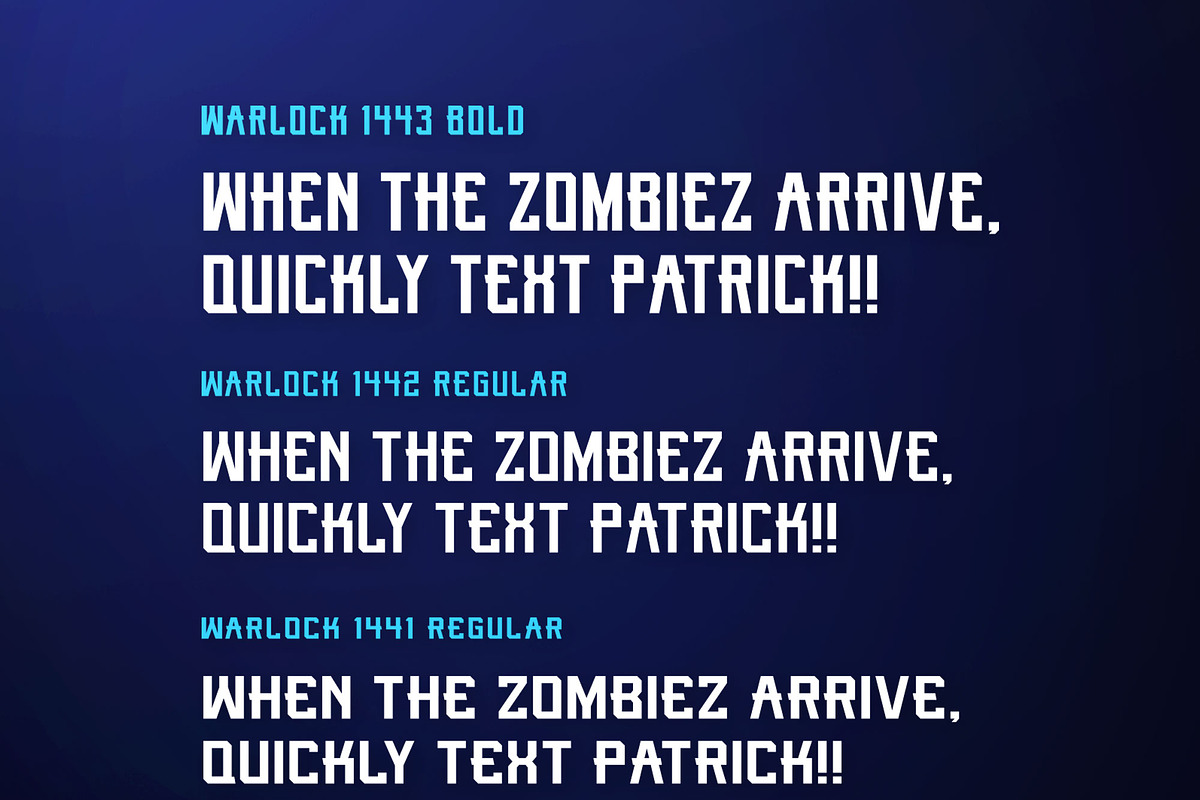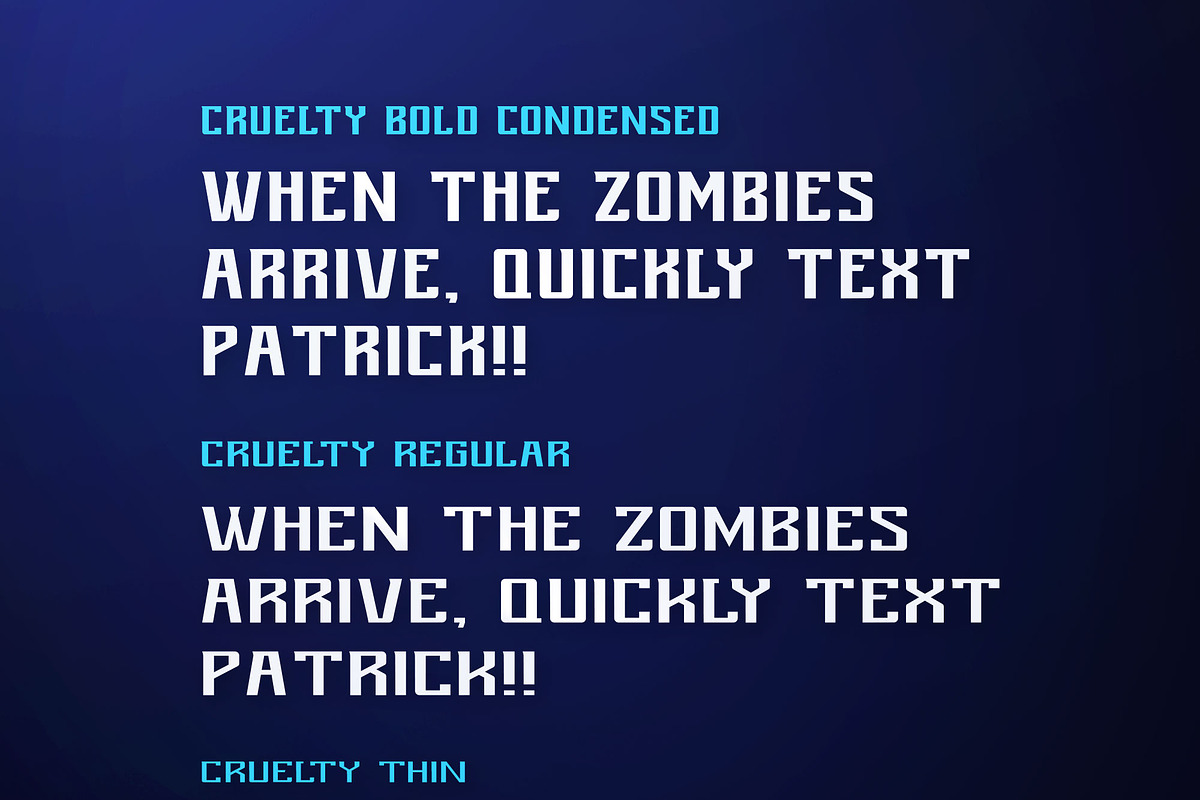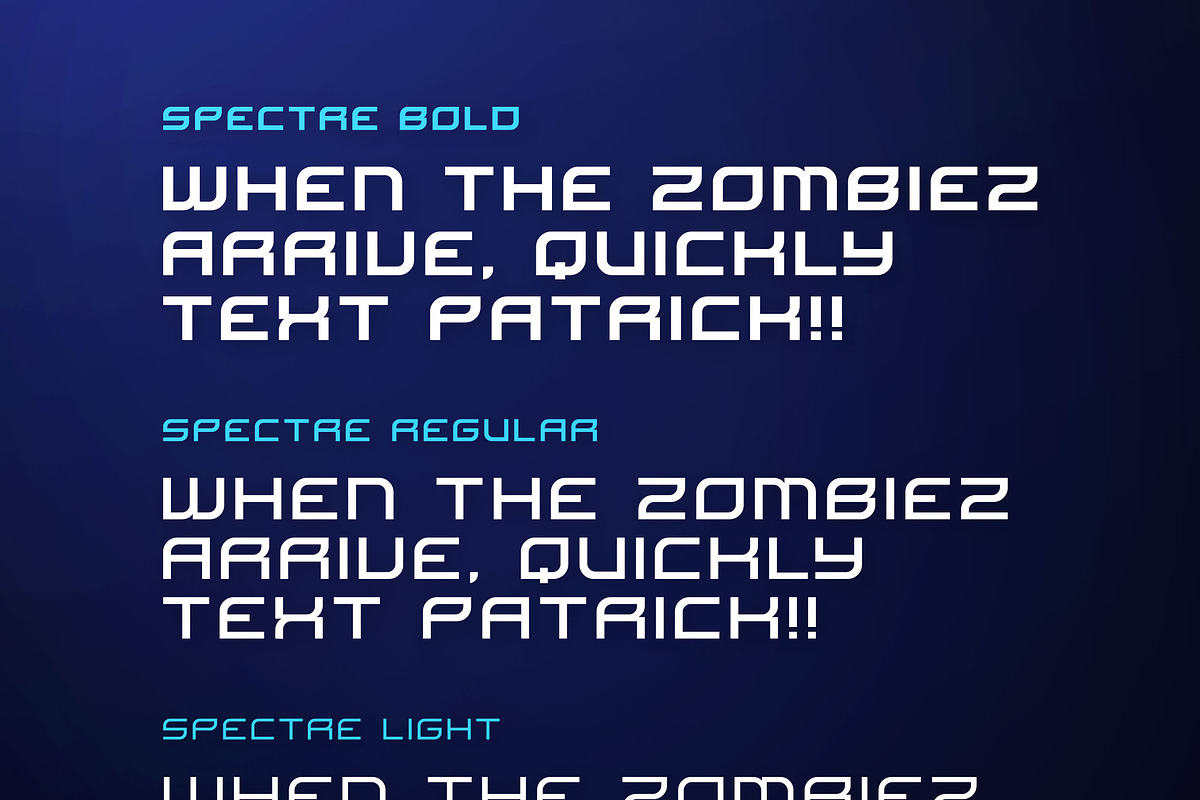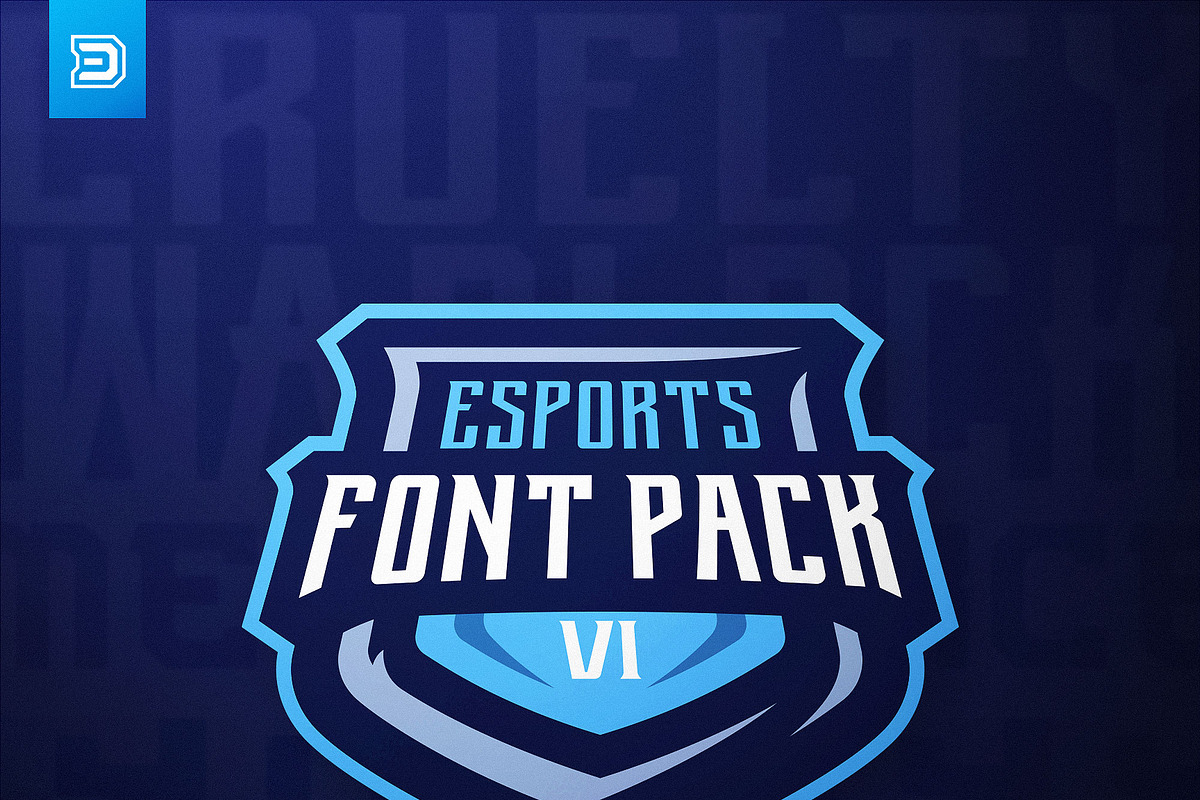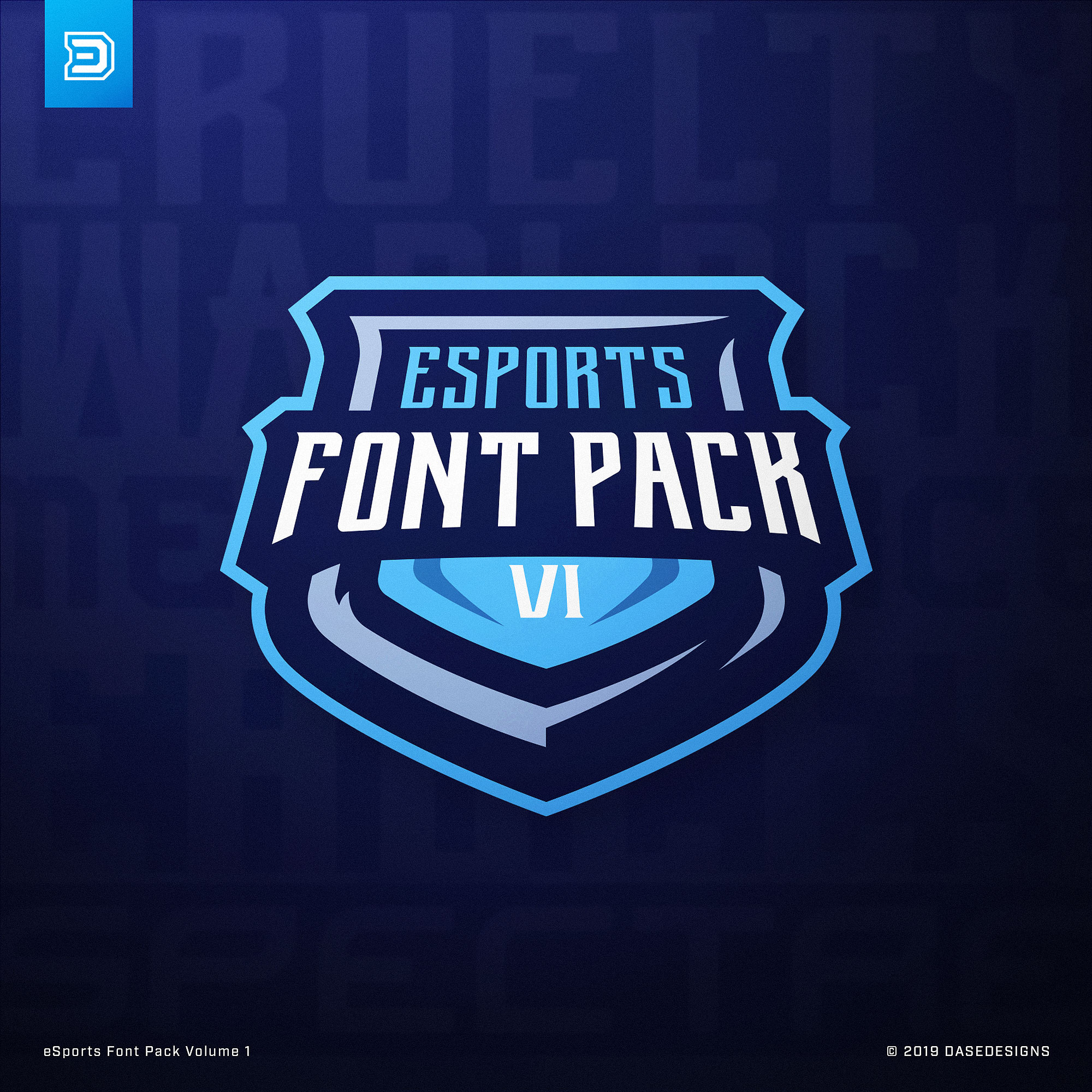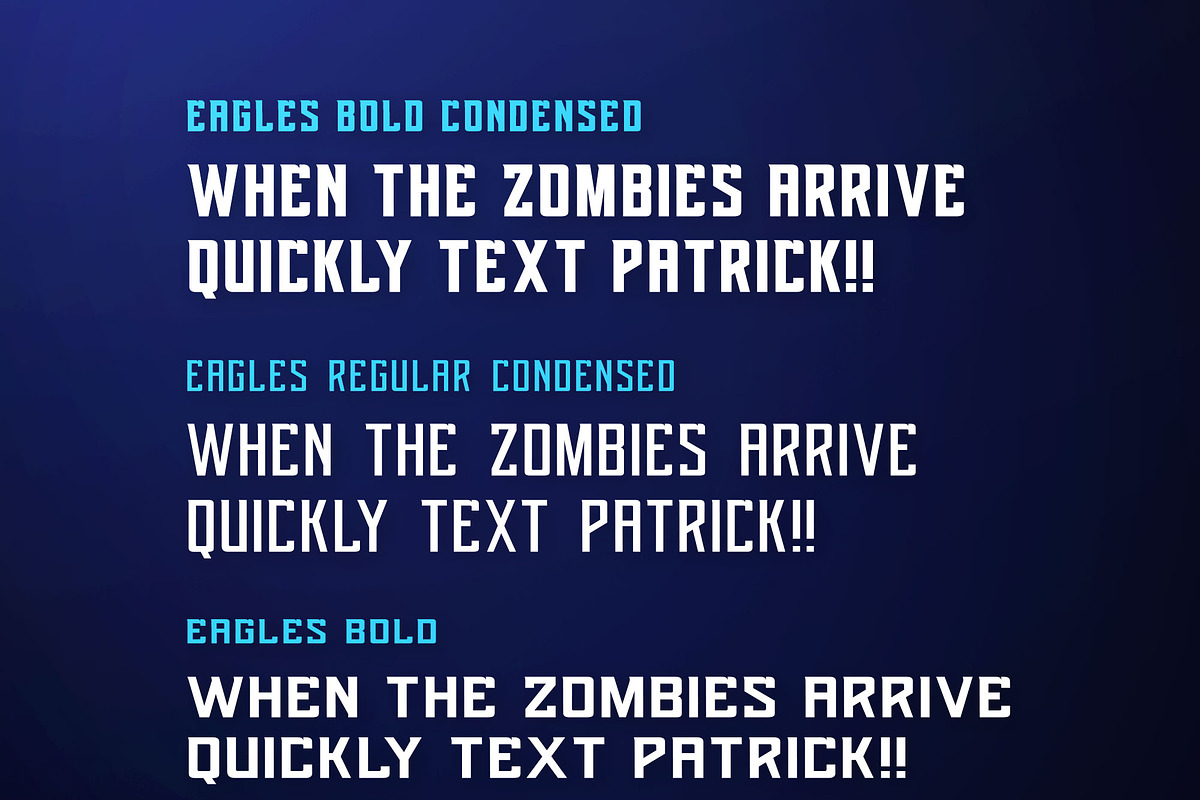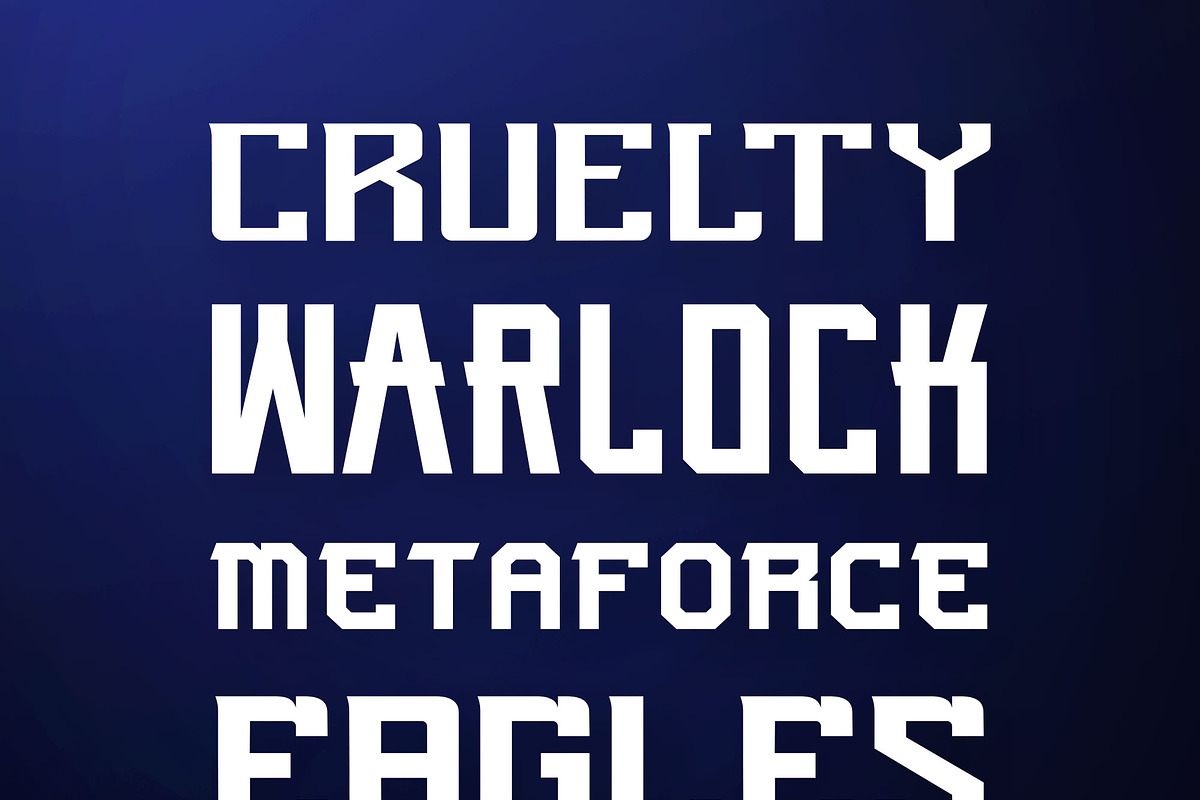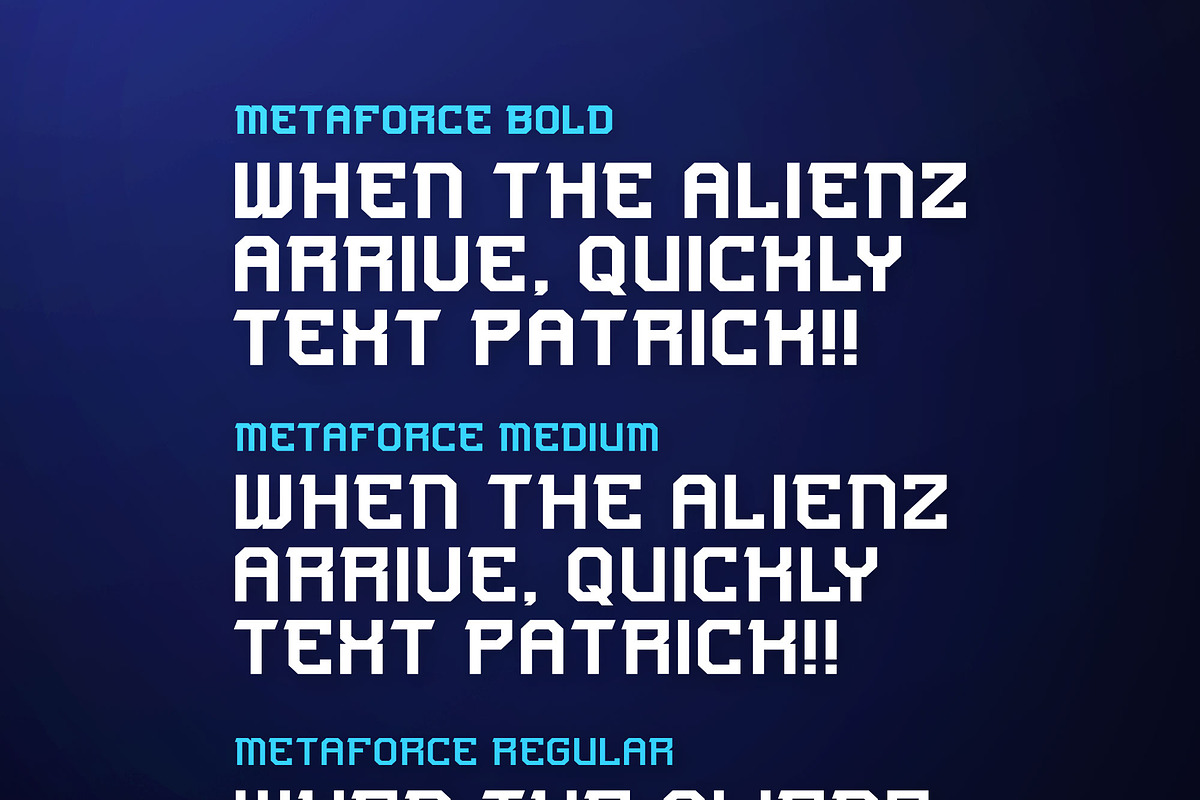
Esports Font Pack Vol 1 | DaseDesign
What's up guys its Derrick from DaseDesigns! If you know me, you've heard about my eSports Font Pack.
This pack contains 5 headline based typefaces (primarily all Caps based fonts with numbers & symbols) with their primary focus being on the style of Sports & Esports logos and industries.
This font pack contains these fonts specifically Cruelty, Warlock, Metaforce, Eagles, and Spectre all fonts having multiple weights and sizes as seen below!